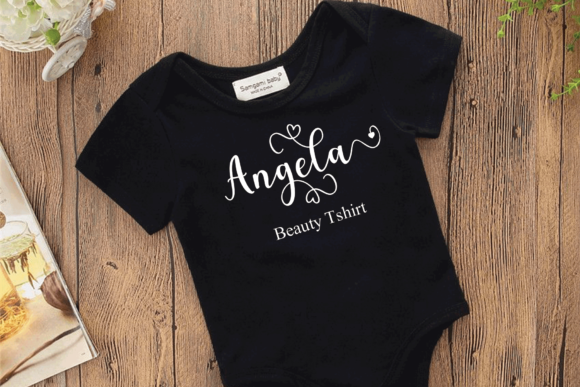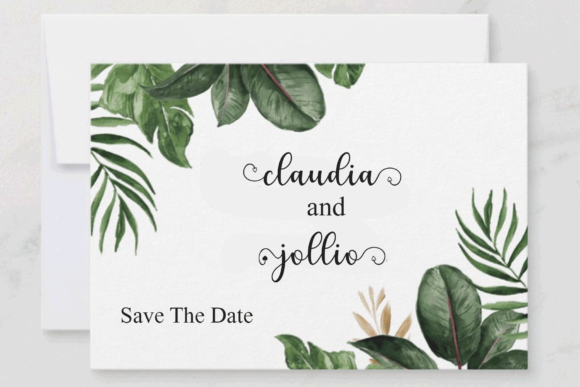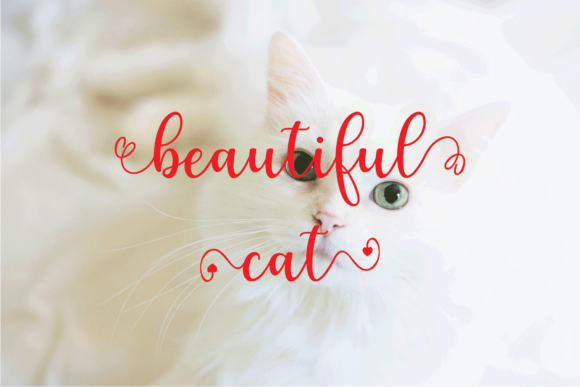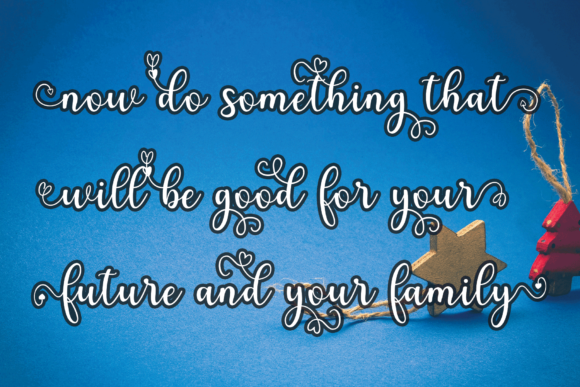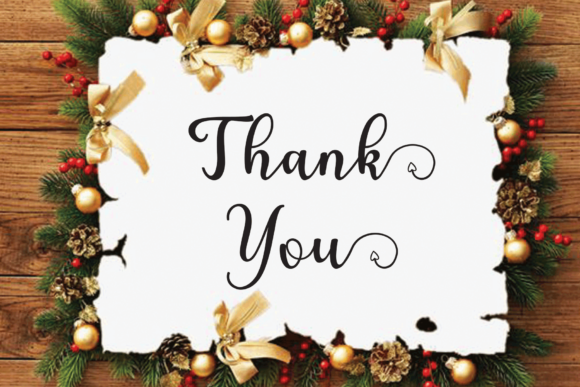
Discover the Charm of Angela Font: A Lovely Handwritten Script
Are you on the hunt for a font that can add a touch of elegance and sophistication to your designs? Look no further than Angela Font, a beautiful handwritten script that’s perfect for creating eye-catching logos, branding, and quotes. With its unique and timeless charm, Angela Font is sure to make your designs come alive!
What Makes Angela Font So Special?
Angela Font is a lovely and timeless handwritten font that’s designed to add a personal touch to your designs. Every letter has a unique and beautiful touch, which sets it apart from other fonts. The font is carefully crafted to provide a natural, handwritten look that’s perfect for creating:
- Eye-catching logos that capture attention
- Branding materials that exude elegance and sophistication
- Quotes that inspire and motivate
Key Features of Angela Font
So, what makes Angela Font so versatile and easy to use? Here are some of its key features:
- PUA Encoded: Angela Font is PUA encoded, which means you can access all of the glyphs and swashes with ease. This makes it easy to customize your designs and add a personal touch.
- Unique Letterforms: Every letter in Angela Font has a unique and beautiful touch, which ensures that your designs stand out from the crowd.
- Handwritten Look: The font has a natural, handwritten look that’s perfect for creating designs that exude warmth and personality.
Why Designers and Crafters Love Angela Font
Angela Font has quickly become a favorite among designers and crafters, and for good reason. Here are some reasons why:
- Ease of Use: The font is easy to use and customize, even for those who are new to design.
- Versatility: Angela Font can be used for a wide range of design projects, from logos and branding to quotes and social media graphics.
- Unique Look: The font’s unique letterforms and handwritten look ensure that your designs stand out from the crowd.
How to Use Angela Font in Your Designs
Ready to start using Angela Font in your designs? Here are some tips to get you started:
- Pair it with Other Fonts: Angela Font pairs well with other fonts, so don’t be afraid to experiment with different combinations.
- Use it for Headlines: The font’s bold and playful look makes it perfect for headlines and titles.
- Add Swashes and Glyphs: Use the font’s PUA encoded features to add swashes and glyphs to your designs.
Angela Font is a beautiful and versatile handwritten font that’s perfect for designers and crafters. With its unique letterforms, handwritten look, and PUA encoded features, it’s easy to see why it’s become a favorite among designers. Whether you’re creating logos, branding materials, or quotes, Angela Font is sure to make your designs come alive!